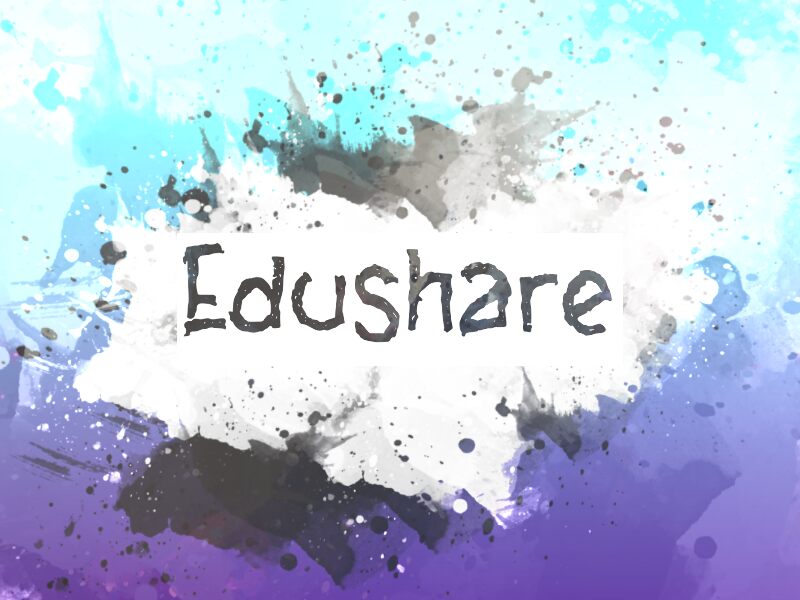
Edushare
Edushare, a captivating brush font crafted by wep, adds a touch of artistic flair to any project. With its semi-light weight, this font exudes a sense of elegance and sophistication while maintaining readability.
Perfect for educational materials, Edushare brings creativity to textbooks, presentations, and study guides. Its playful strokes and unique style also make it an excellent choice for children's books or posters promoting learning programs.
Stand out from the crowd with Edushare's distinctive brush font that effortlessly blends beauty and functionality.